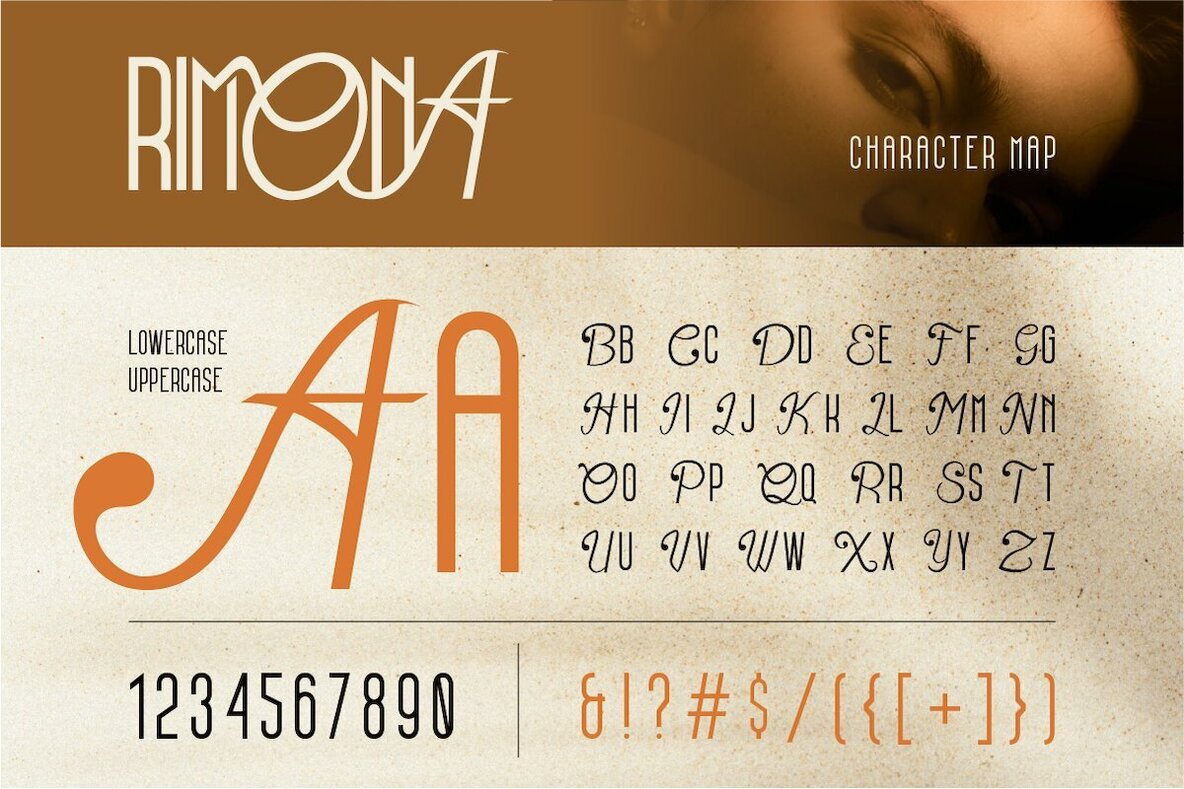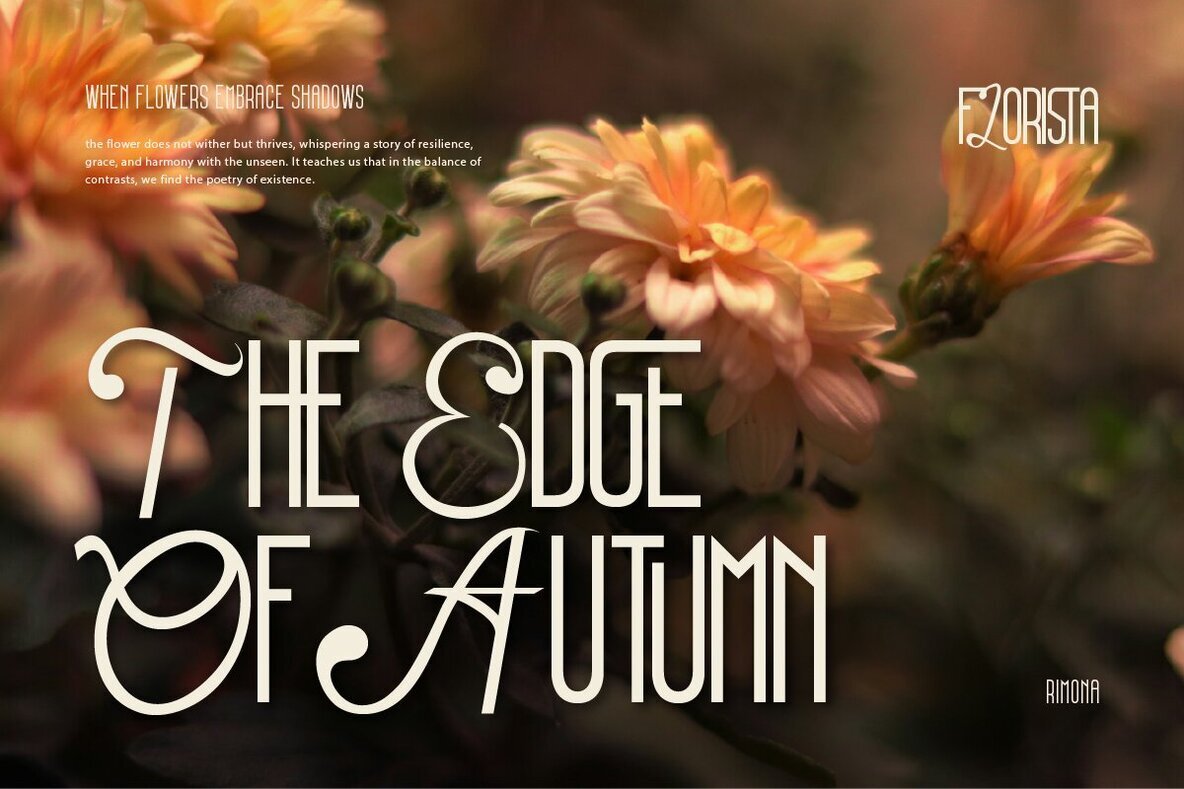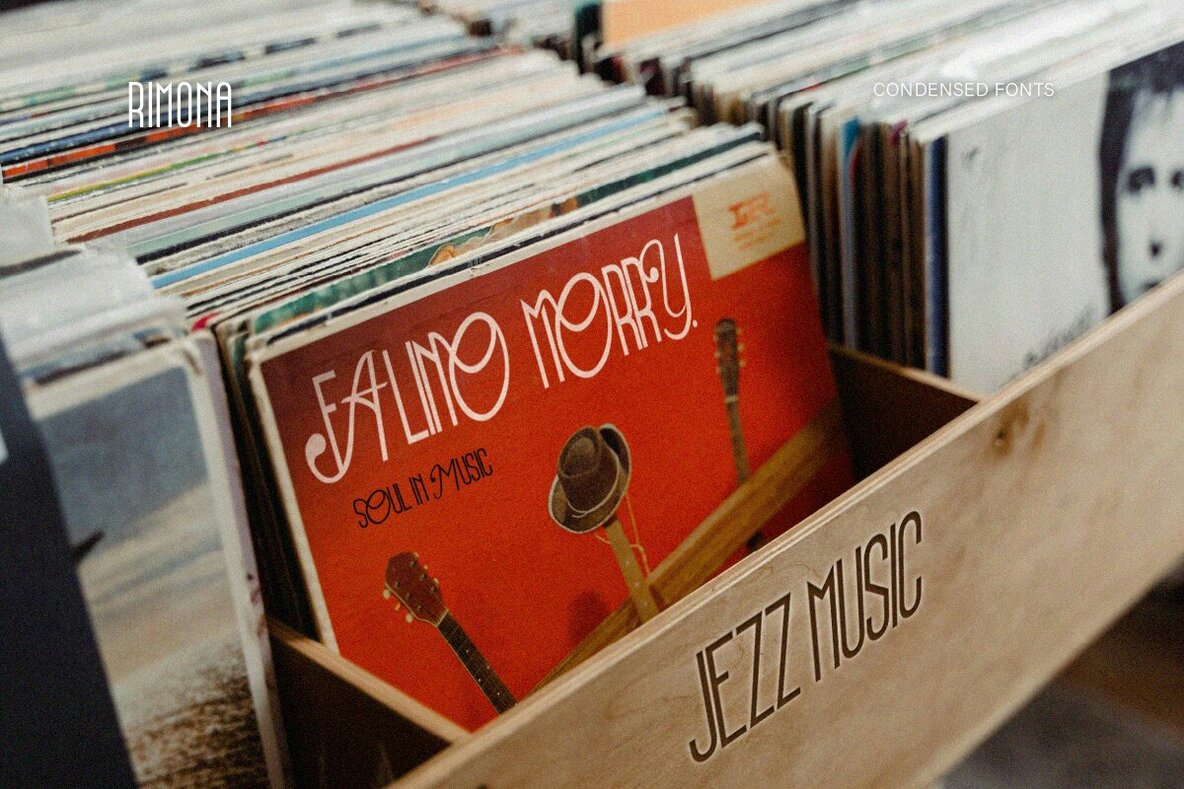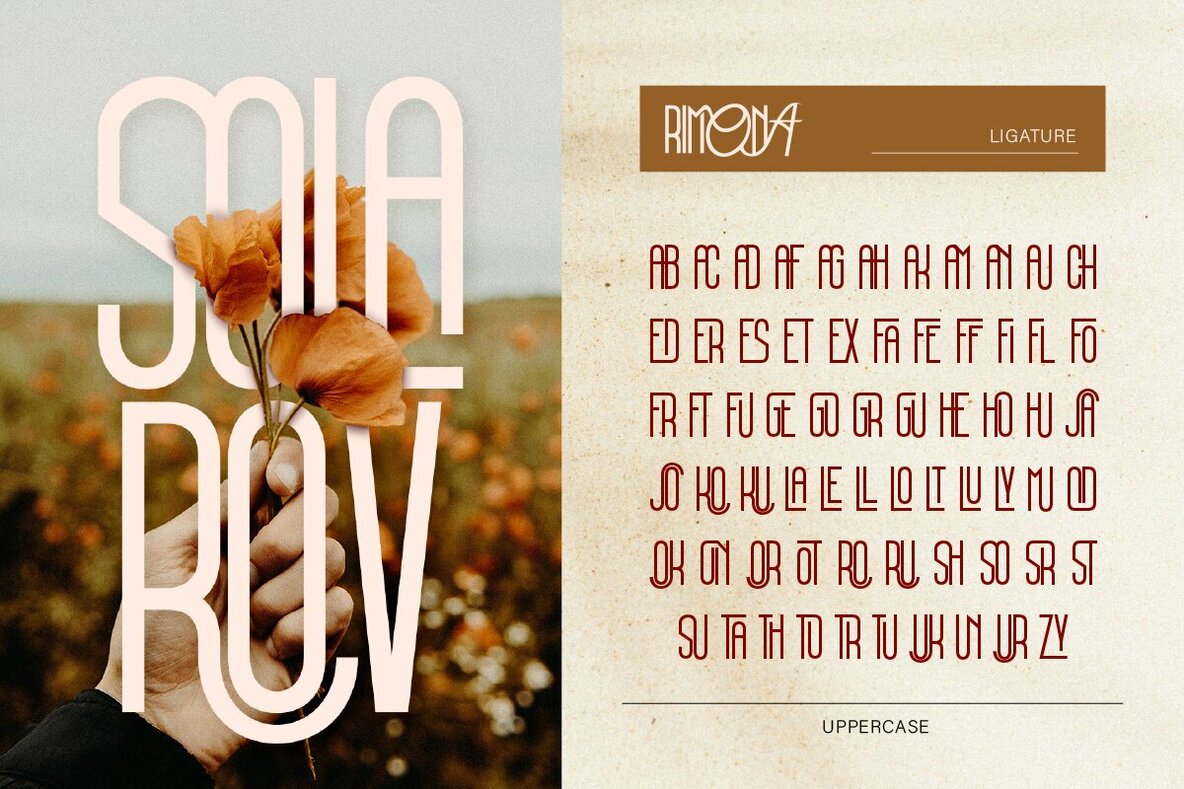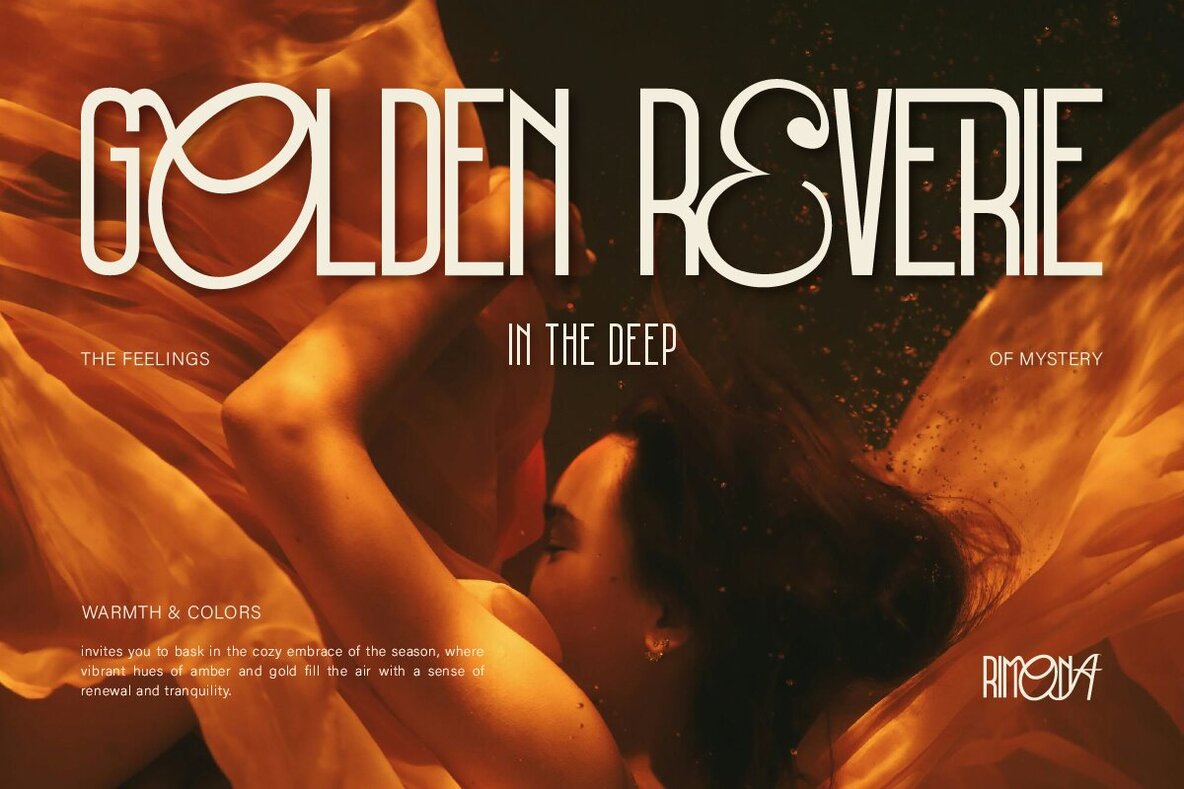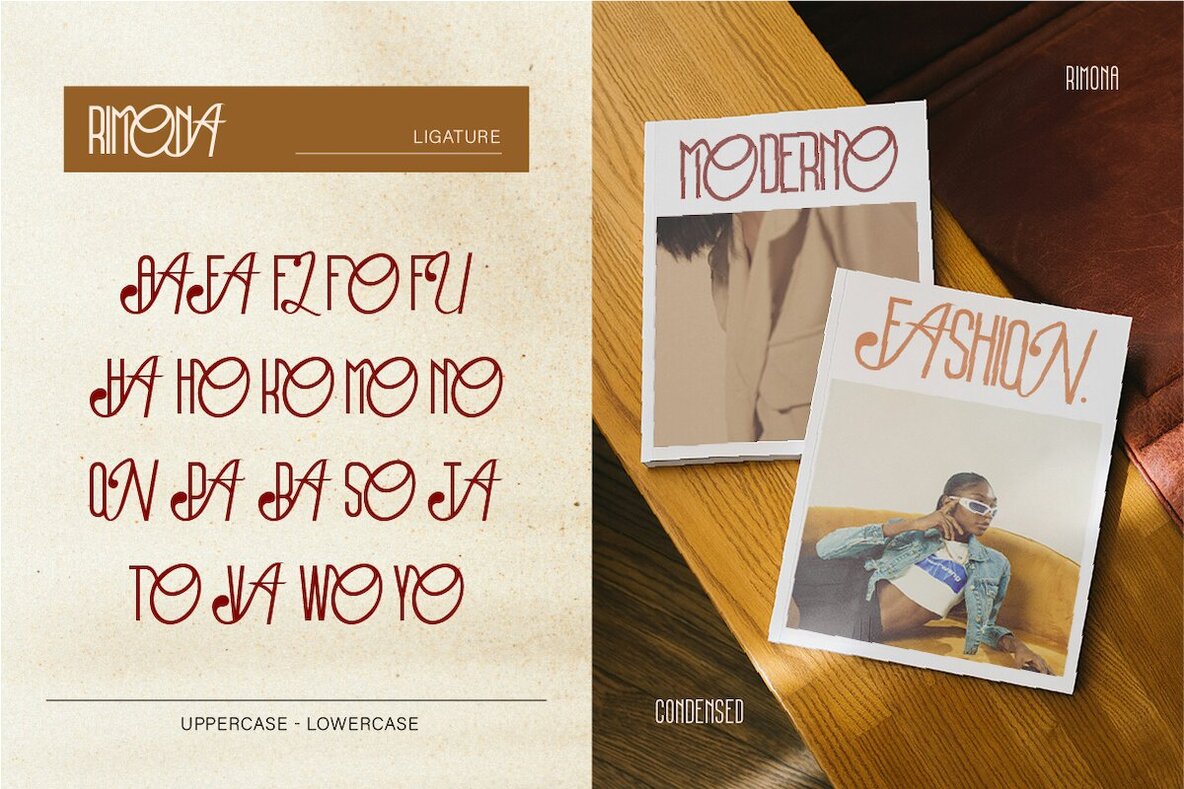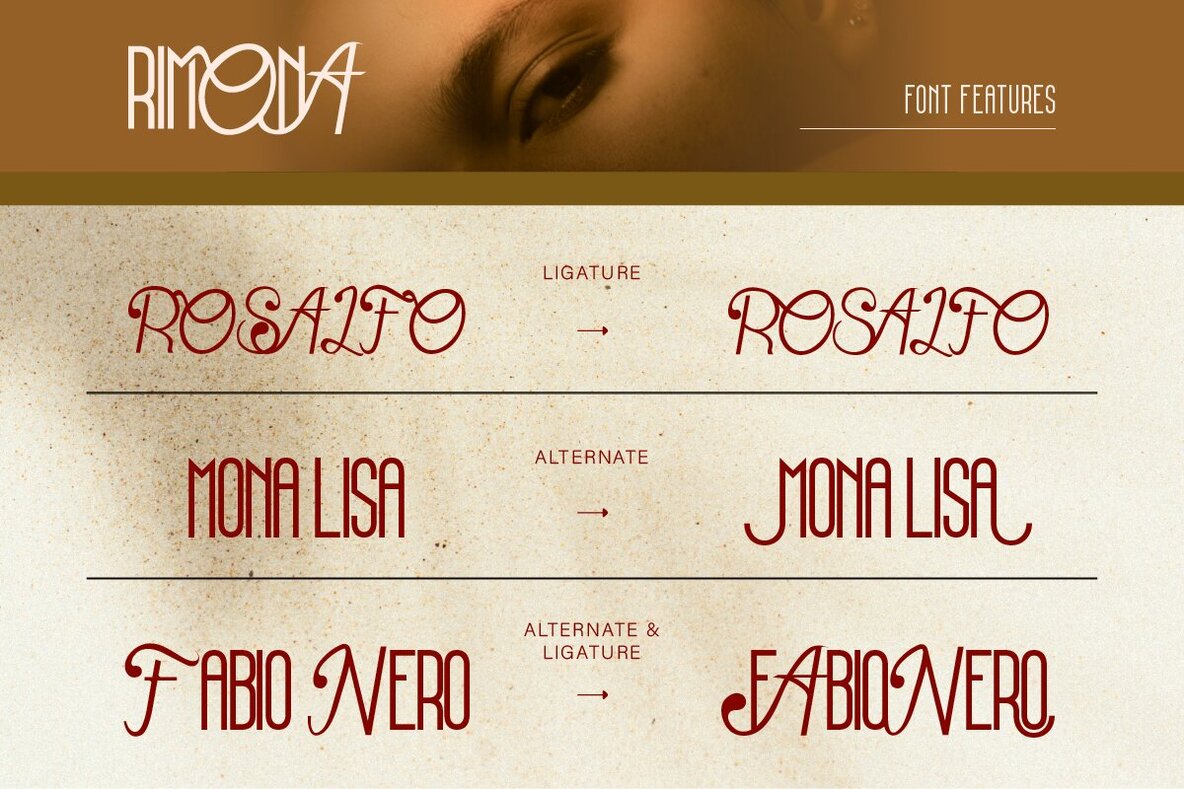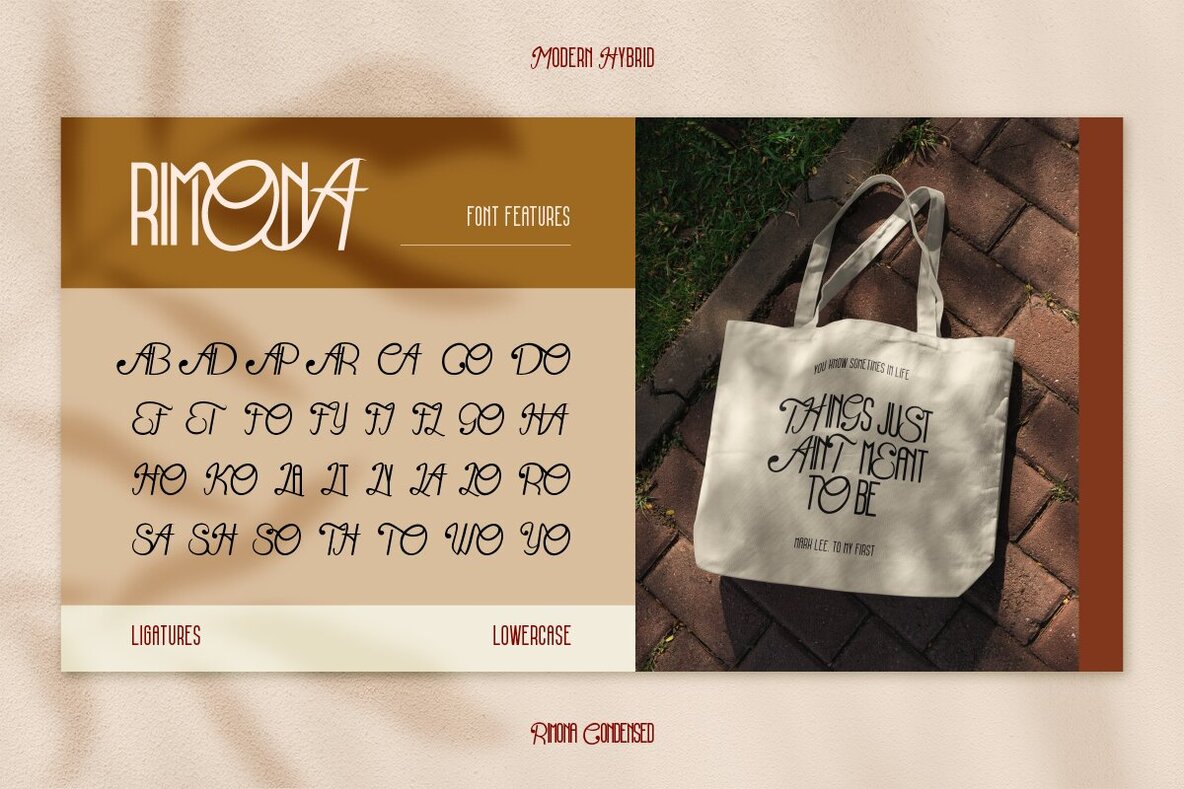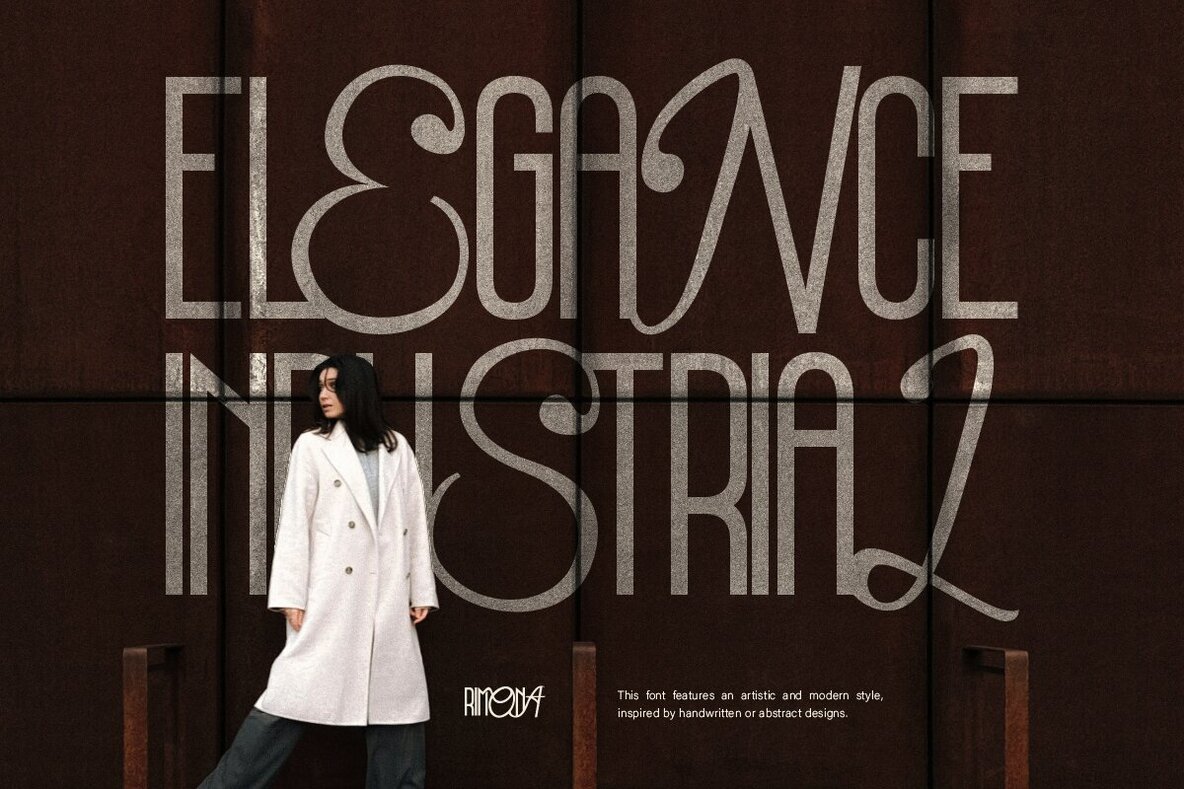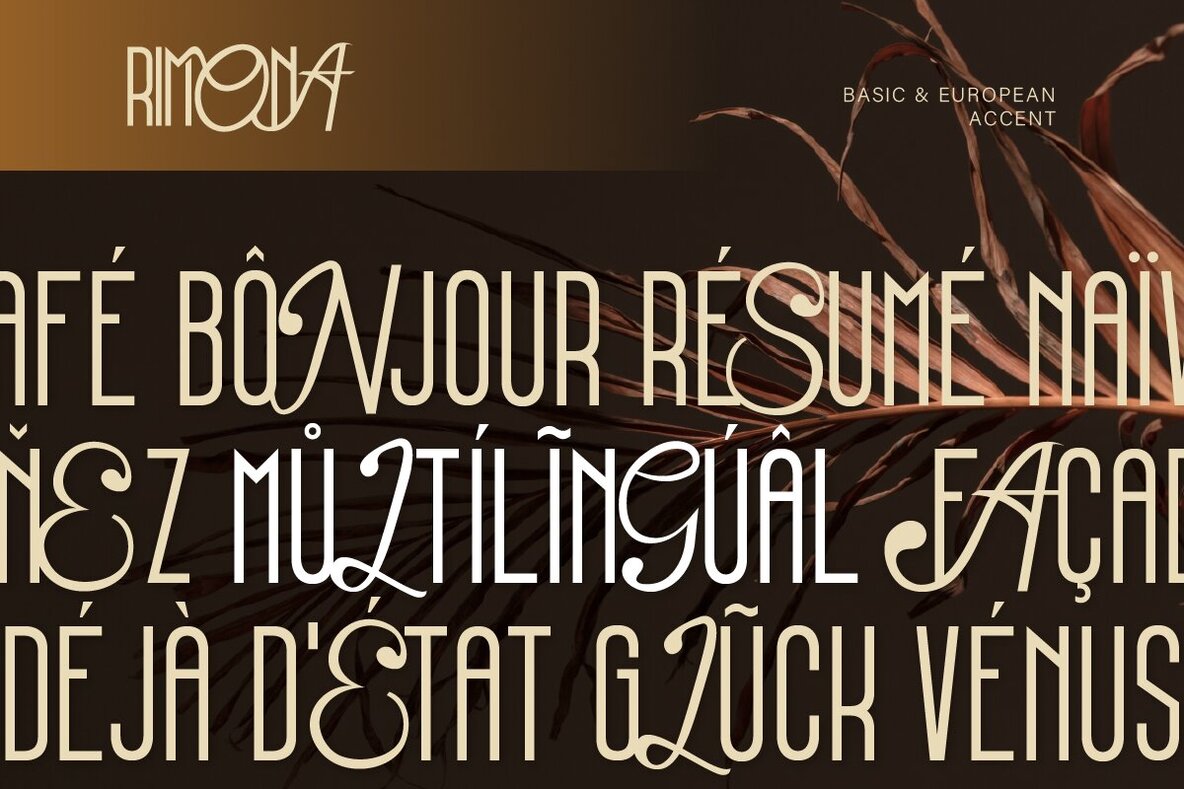
Rimona Font
Say hello to Rimona, a modern hybrid with elegance touch. Rimona combines sans serif and script with beautiful harmony. This font works well for both elegant and playful design. With the ligatures adds a touch of sophistication and uniqueness also the alternates provides flexibility and cutomization options. Include with multilingual support make it suitable for international projects. Ideal for branding, logo design, invitation, packaging design, editorial design, poster and social media graphics
Features:
• A - Z set (Uppercase)
• Number
• Punctuation
• Alternates
• Ligatures
• Multilingual
• Rimona Characters Map